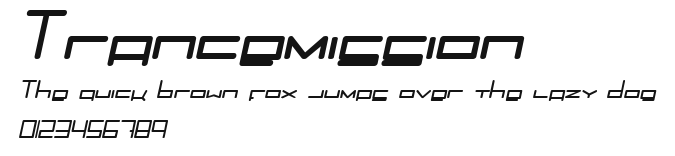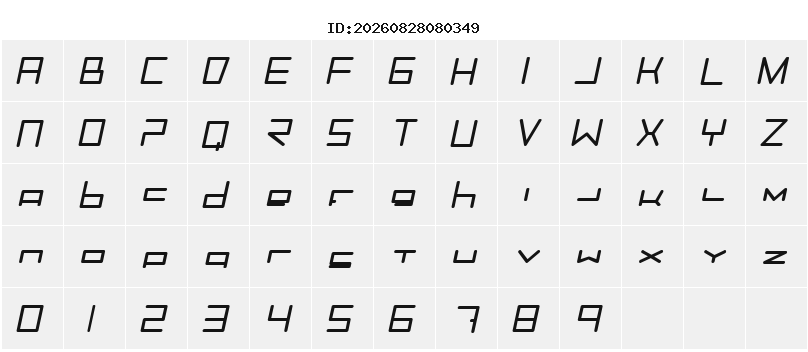
Trancemission Preview
• Font Name: Trancemission
• Font Style: BoldItalic
• Font ID: Macromedia Fontographer 4.1 Trancemission BoldItalic
• Full Font Name: Trancemission BoldItalic
• PostScript Name: TrancemissionBoldItalic
• Character Count: 95
About Trancemission.ttf
Trancemission.ttf is a modern, elegant sans-serif font designed for ultimate readability and visual harmony. Perfect for branding, headlines, web design, and print materials.